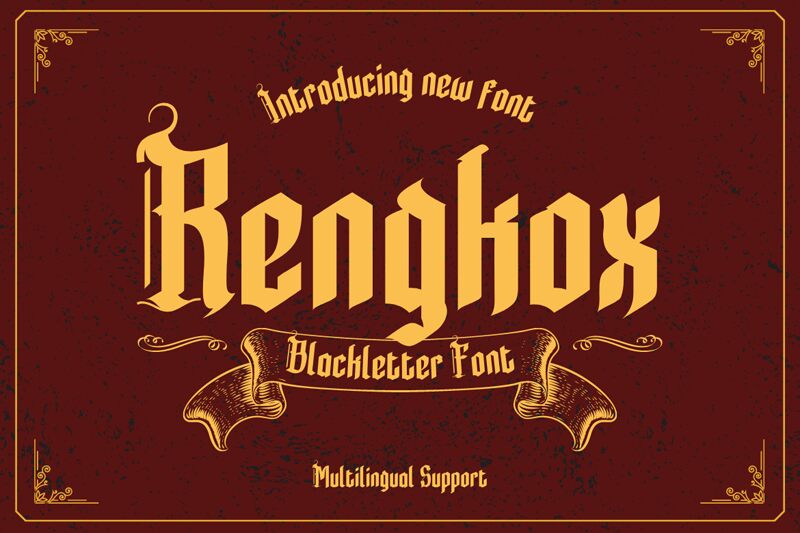
Welcome to the world of Rengkox, a gothic typeface crafted by twinletter. Our newest addition, the Rengkox Blackletter font, is perfect for creating a vintage and elegant style in your projects.
With its semi-bold weight and extra-condensed width, this font brings a bold and classic look to visual designs, titles, banners, and packaging. Elevate your work with Rengkox's strong personality that exudes style and elegance. Whether you're designing logos for luxury brands or creating stunning invitations for special events, Rengkox is the ideal choice to add a touch of sophistication to your creations.